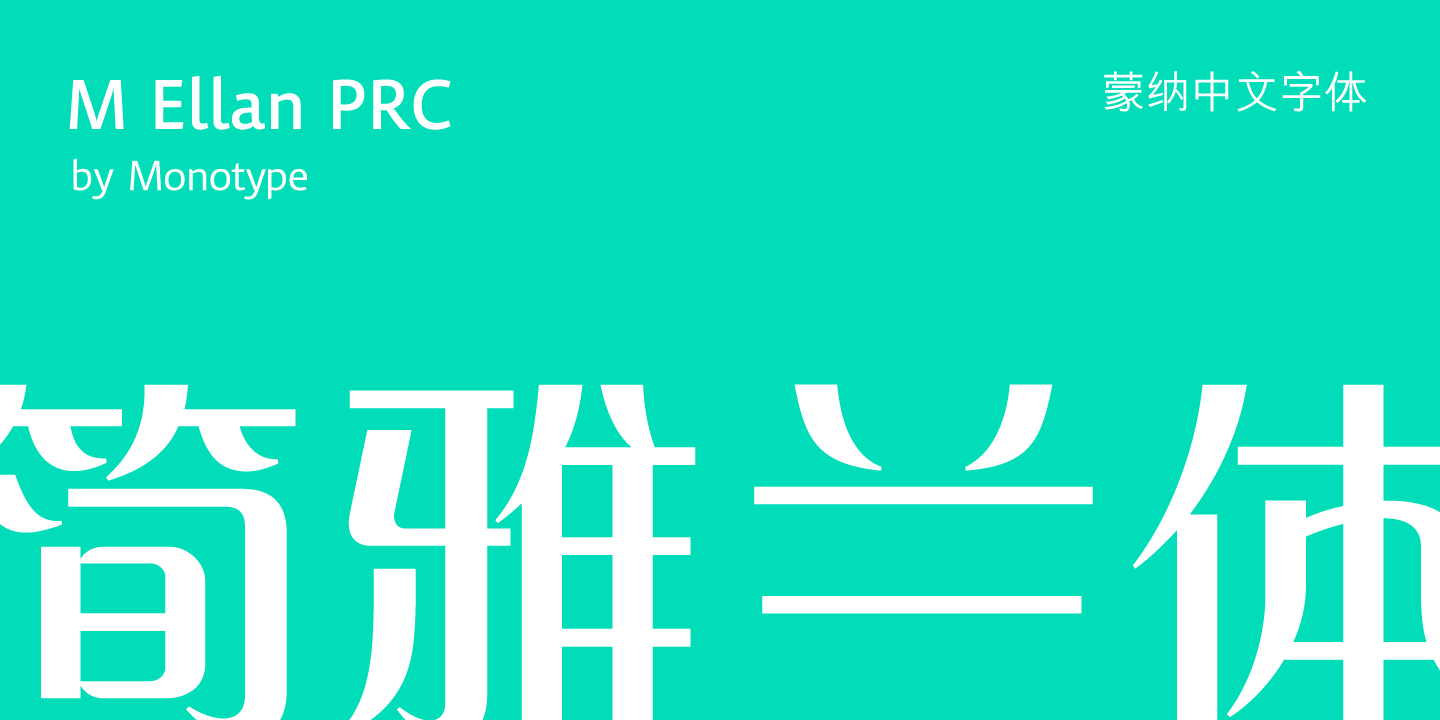
M Ellan PRC Font is perfect for elegant personal stationery, sophisticated wedding materials, refined beauty salon branding, graceful boutique signage, upscale feminine products, delicate greeting cards, luxury lifestyle publications, and distinguished design projects that require refined typography with feminine grace and sophisticated personal character.
This M Ellan PRC Font is exciting because it embodies refined femininity with gracefully crafted letterforms that flow with natural elegance, featuring delicate curves and sophisticated character details that convey personal distinction and feminine sophistication while maintaining perfect readability for premium personal and commercial applications.
The M Ellan PRC Font family includes elegant weights with refined styling, complete character sets with graceful uppercase and lowercase letters, sophisticated numerals, delicate punctuation, and feminine symbols that provide comprehensive typography solutions for personal and luxury design projects requiring authentic feminine aesthetics and elegant appeal.
Perfect for creating distinguished personal communications and refined feminine brand identities, M Ellan PRC Font Free Download delivers the elegant typography that transforms text into beautiful expressions of feminine grace and personal sophistication. This distinctive typeface captures the essence of refined femininity and personal elegance, making it essential for projects celebrating feminine beauty, personal distinction, elegant branding, and any design requiring graceful character with authentic feminine sophistication and timeless elegant appeal that speaks to refined sensibilities.